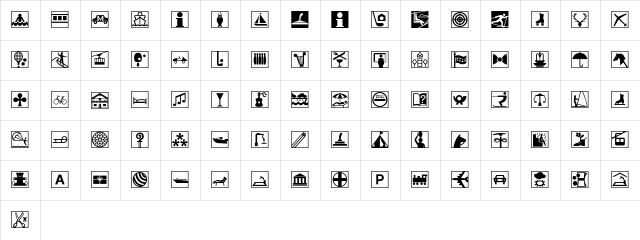
Linotype Holiday Pi 2
Design Context for Linotype Holiday Pi Typeface
Linotype Holiday Pi is a composed and adaptable typeface that performs quietly and consistently across a wide range of design contexts.